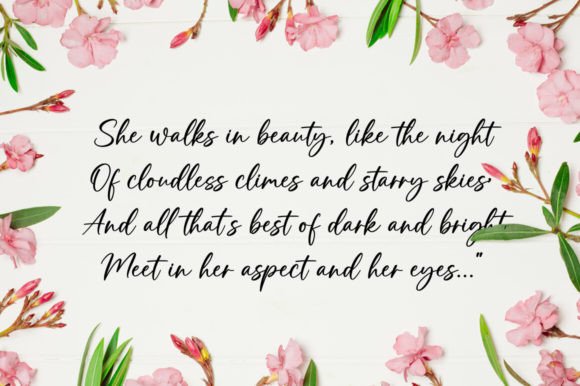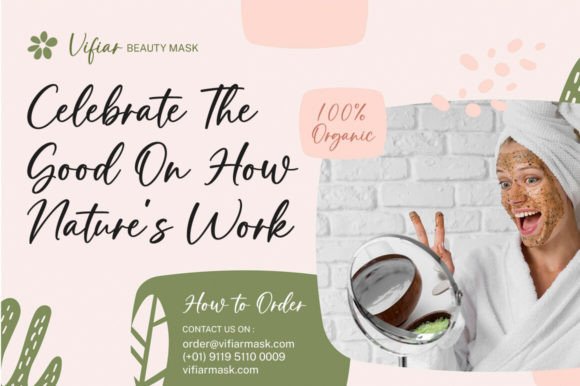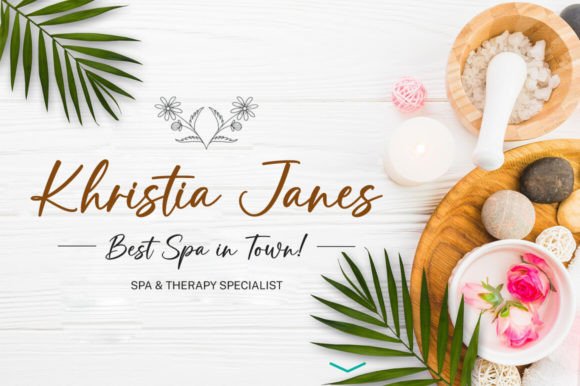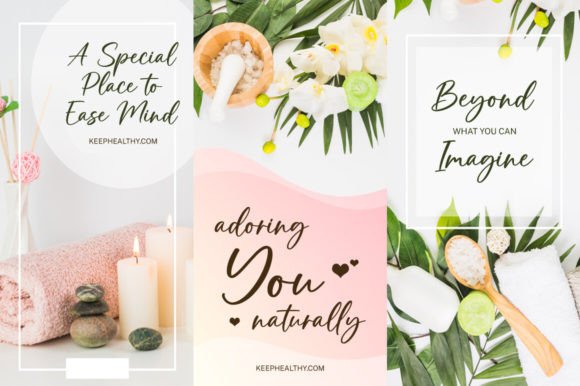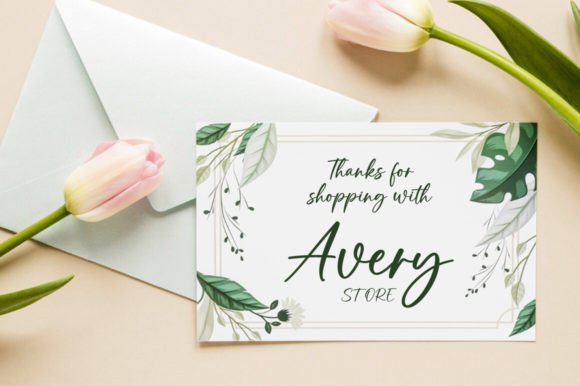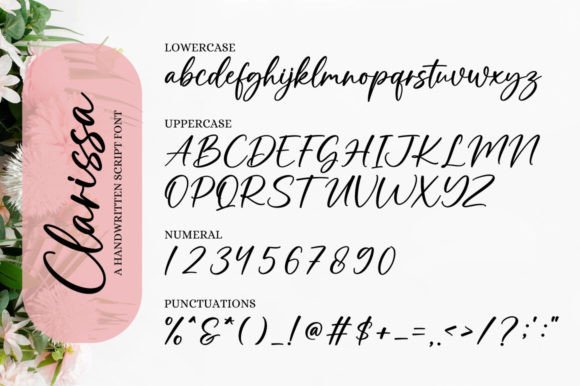
Introducing Clarissa Font: Elevate Your Designs with Elegance and Sophistication
In the world of typography, a font can make or break a design. For designers and crafters seeking to add a touch of elegance and sophistication to their work, Clarissa Font is an exceptional choice. This beautiful, well-balanced, and graceful script font is defined by its smooth curves, making it perfect for fashion branding, editorial designs, and a wide range of creative projects.
The Characteristics of Clarissa Font
Clarissa Font boasts a unique set of characteristics that set it apart from other script fonts. Its smooth, flowing curves give it a sense of fluidity and movement, making it ideal for designs that require a touch of dynamism. The font’s well-balanced and graceful nature ensures that it remains legible and visually appealing, even at smaller sizes.
One of the standout features of Clarissa Font is its versatility. Whether you’re working on a fashion brand’s logo, an editorial design, or a craft project, this font adapts seamlessly to different contexts. Its elegant and sophisticated aesthetic makes it perfect for high-end brands, luxury products, and refined designs.
Perfect for Fashion Branding
Fashion branding requires a font that exudes style, sophistication, and elegance. Clarissa Font ticks all these boxes, making it an excellent choice for fashion designers and brands. The font’s smooth curves and flowing lines evoke a sense of luxury and refinement, perfect for high-end fashion brands.
Whether you’re designing a logo, business cards, or packaging for a fashion brand, Clarissa Font is an excellent choice. Its unique and distinctive aesthetic will help your brand stand out in a crowded market, while its legibility ensures that your message is communicated clearly.
Ideal for Editorial Designs
Editorial designs require a font that is both elegant and readable. Clarissa Font meets these requirements, making it an excellent choice for magazines, blogs, and other editorial projects. The font’s smooth curves and flowing lines create a sense of continuity and flow, drawing the reader’s eye through the text.
Whether you’re designing a feature article, a blog post, or a social media graphic, Clarissa Font is an excellent choice. Its elegant and sophisticated aesthetic will elevate your design, while its legibility ensures that your message is communicated clearly.
Tips for Using Clarissa Font
To get the most out of Clarissa Font, here are a few tips to keep in mind:
- Use it for headlines and titles: Clarissa Font is perfect for headlines and titles, where its elegant and sophisticated aesthetic can shine.
- Pair it with a sans-serif font: For body text, pair Clarissa Font with a sans-serif font to create a striking contrast.
- Experiment with different sizes: Clarissa Font remains legible at smaller sizes, making it perfect for a wide range of design applications.
In conclusion, Clarissa Font is a beautiful, well-balanced, and graceful script font that is perfect for fashion branding, editorial designs, and a wide range of creative projects. Its smooth curves and flowing lines evoke a sense of luxury and refinement, making it an excellent choice for designers and crafters seeking to add a touch of elegance and sophistication to their work.
Whether you’re a seasoned designer or a crafty DIY enthusiast, Clarissa Font is an excellent addition to your typography toolkit. So why not give it a try and see how it can elevate your designs?